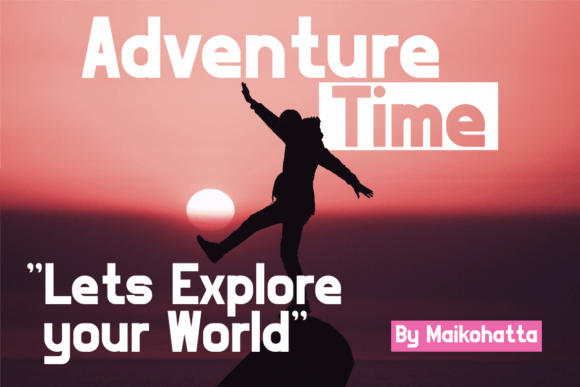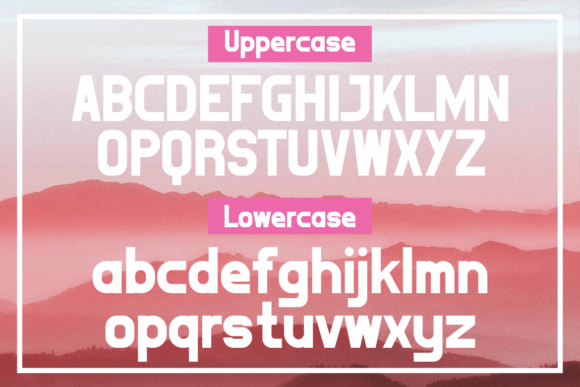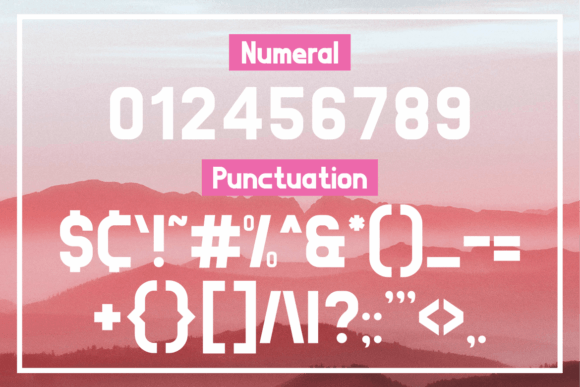
Introduction to Kivana Font
This Font is a very flexible choice and can be used in a variety of design contexts.
Its ability to provide a clean, professional, contemporary look and its simplicity and visual appeal make this font good for use in the world of graphic design and modern typography .
Key Features of Kivana Font